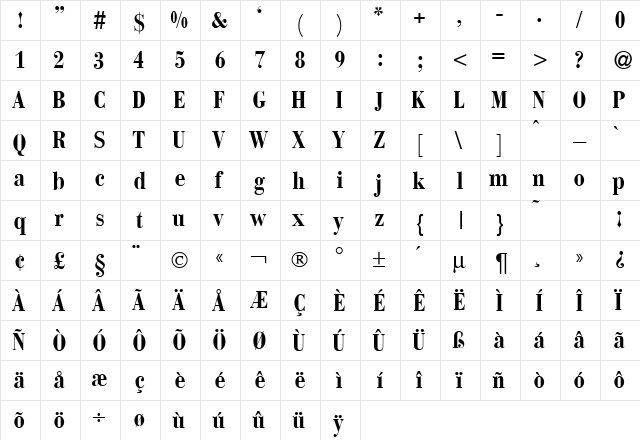
BabylonDB Normal
Design Context for BabylonDB Typeface
BabylonDB takes a measured approach to typography — its balanced proportions and neutral character make it a reliable workhorse for both digital and print work.